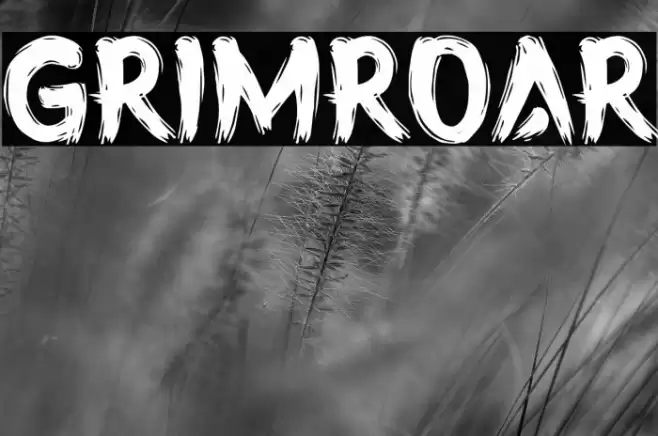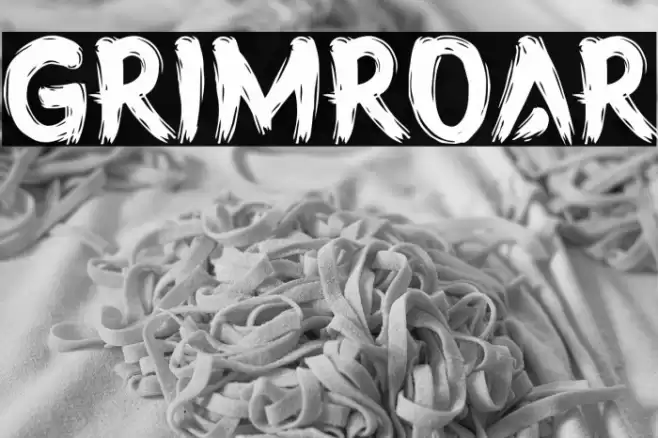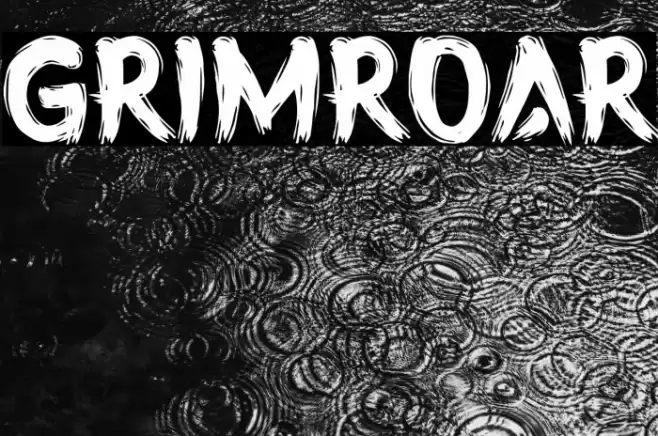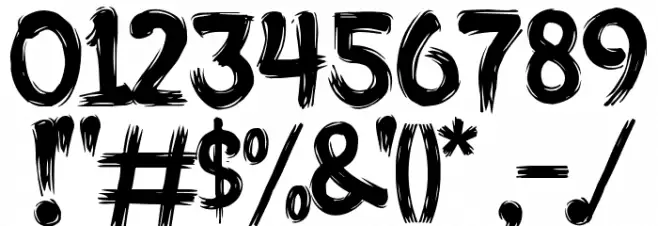
GRIMROAR Font
GRIMROAR Description
This font features a bold, brushstroke style that exudes a sense of raw energy and movement. Each character is crafted with a dynamic, hand-drawn appearance, giving it a unique and artistic flair. The strokes are uneven and textured, resembling brush marks, which adds an organic and expressive quality. The uppercase and lowercase letters maintain a consistent style, with rounded edges and varying thickness that contribute to its lively and bold character. The numbers and special characters are equally expressive, ensuring a cohesive look across all elements.
A bold, brushstroke font with dynamic and expressive characters from Regular fonts.